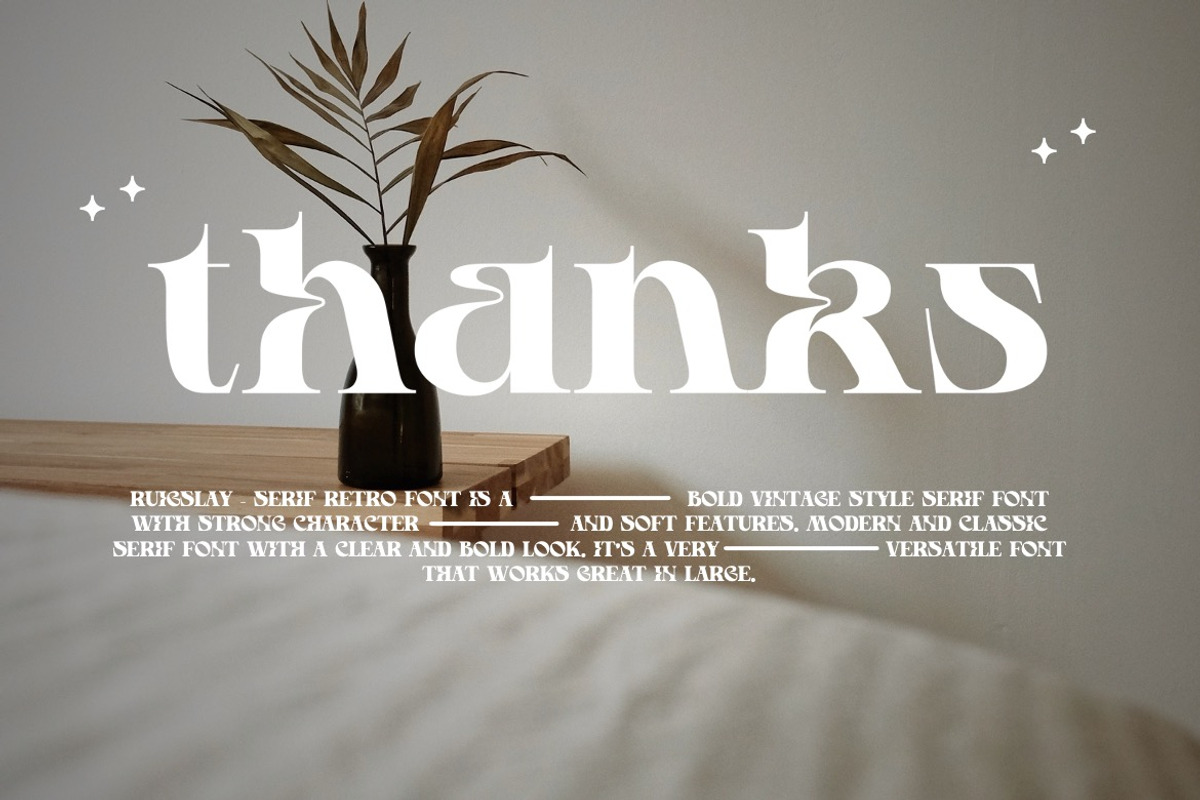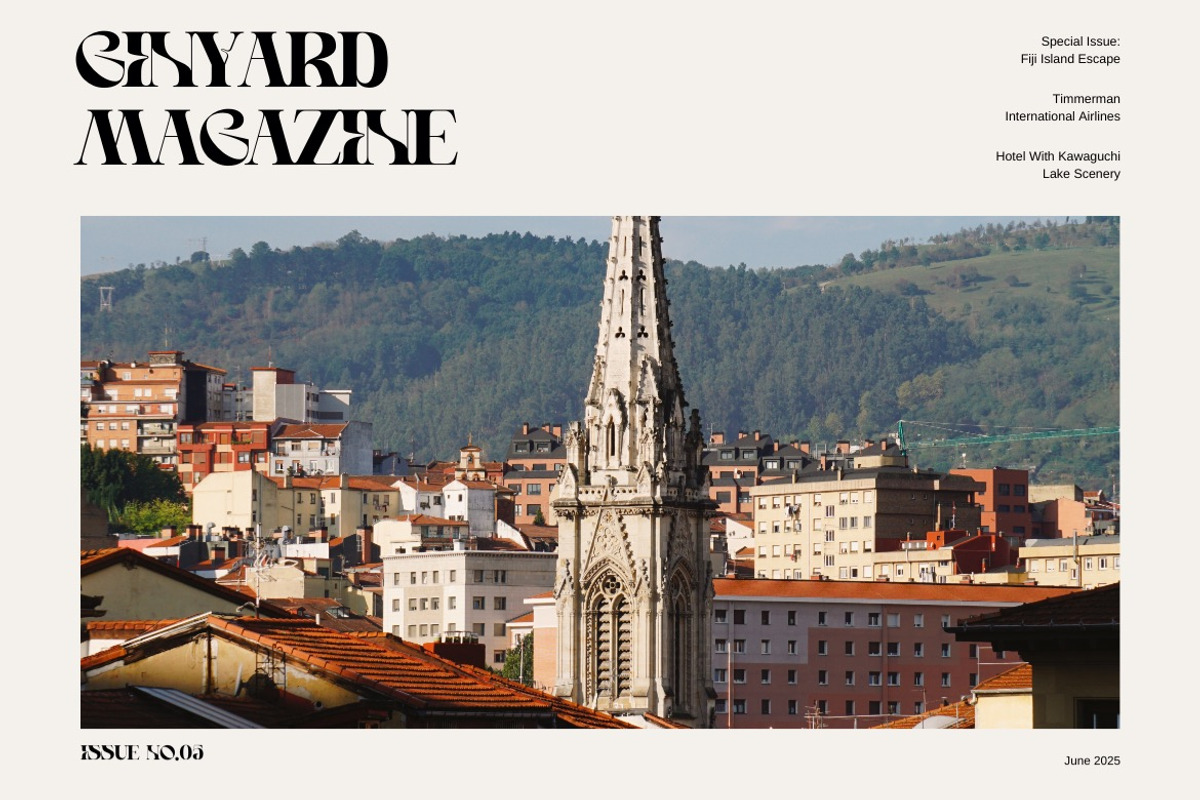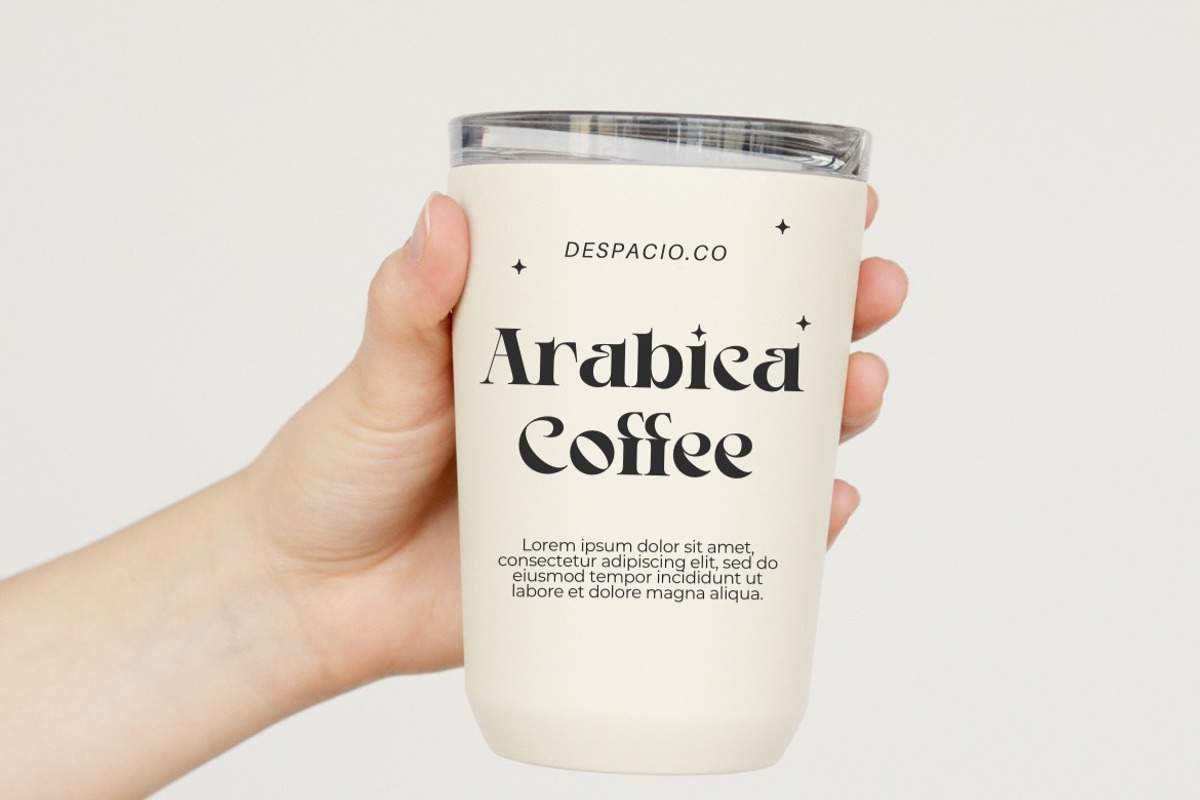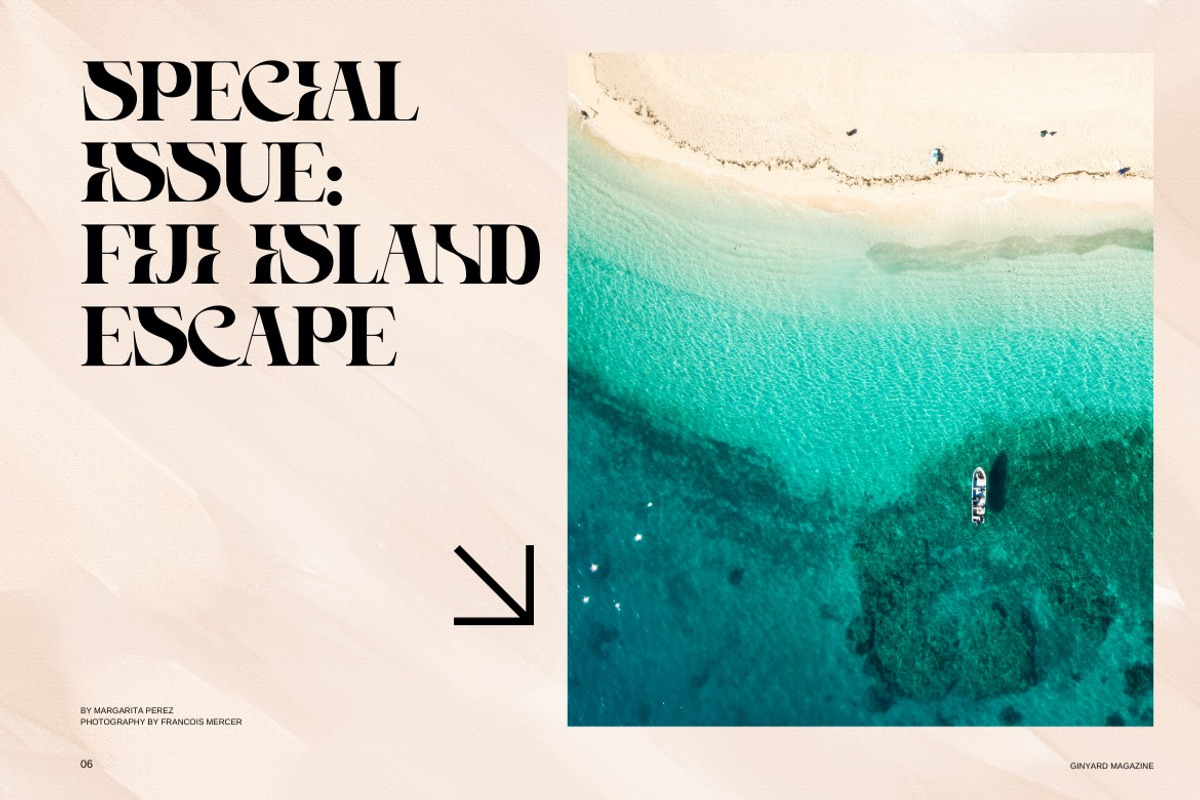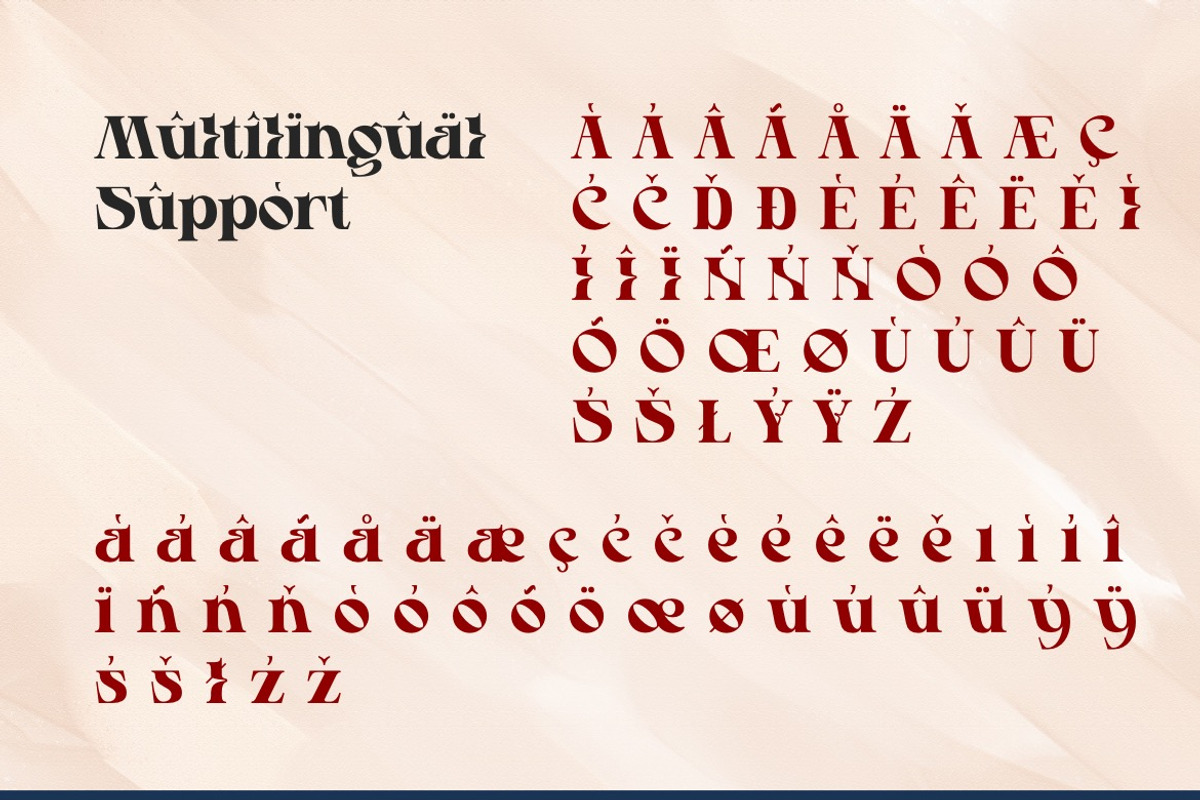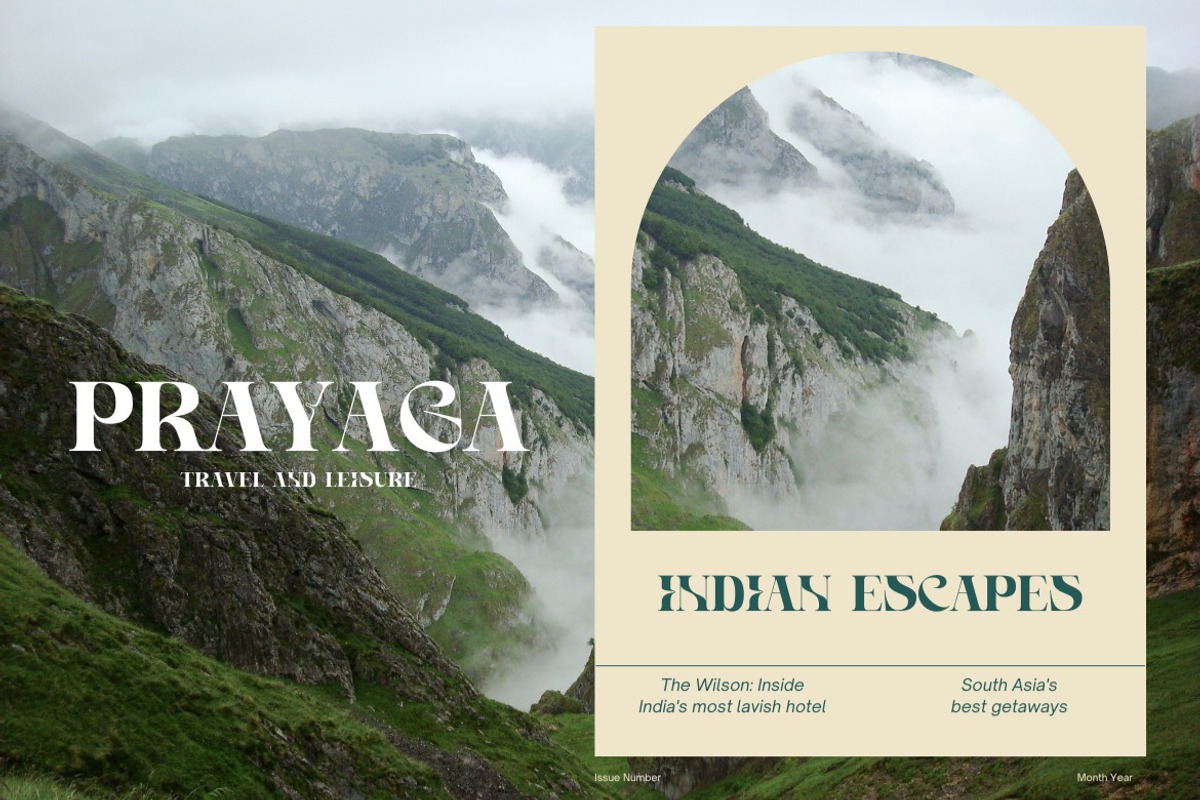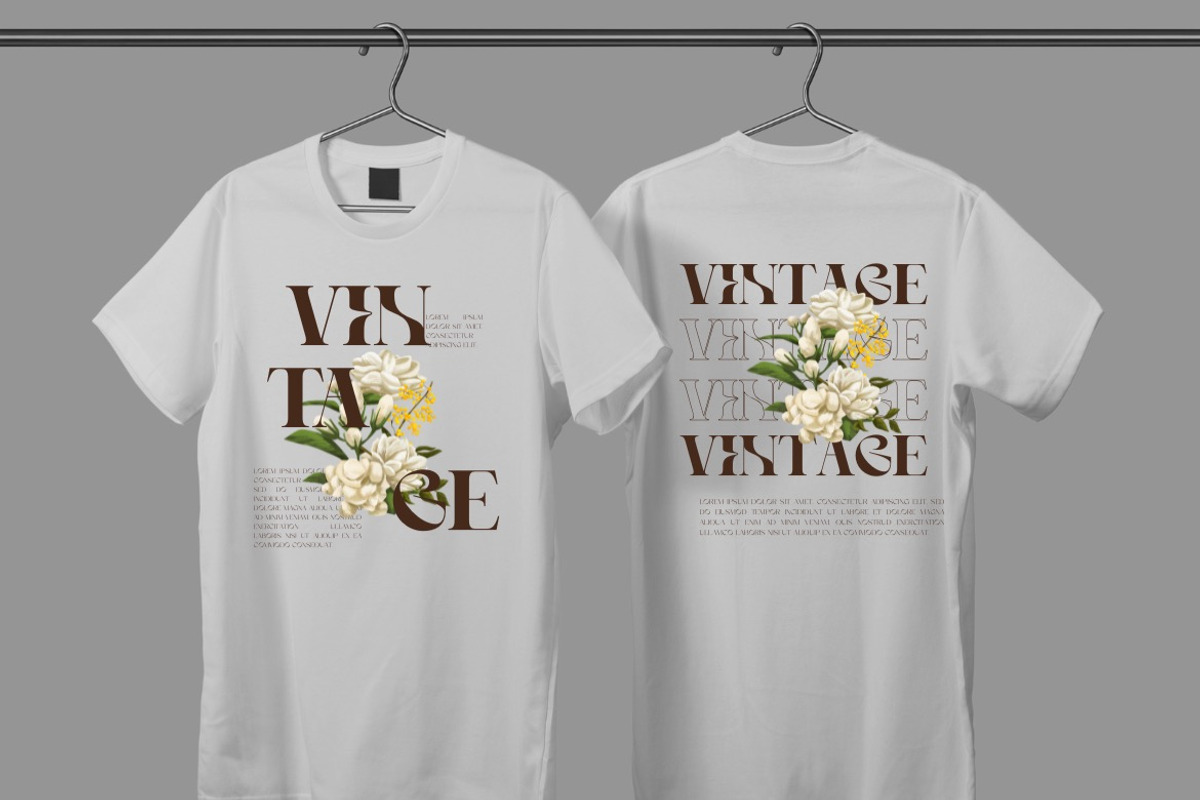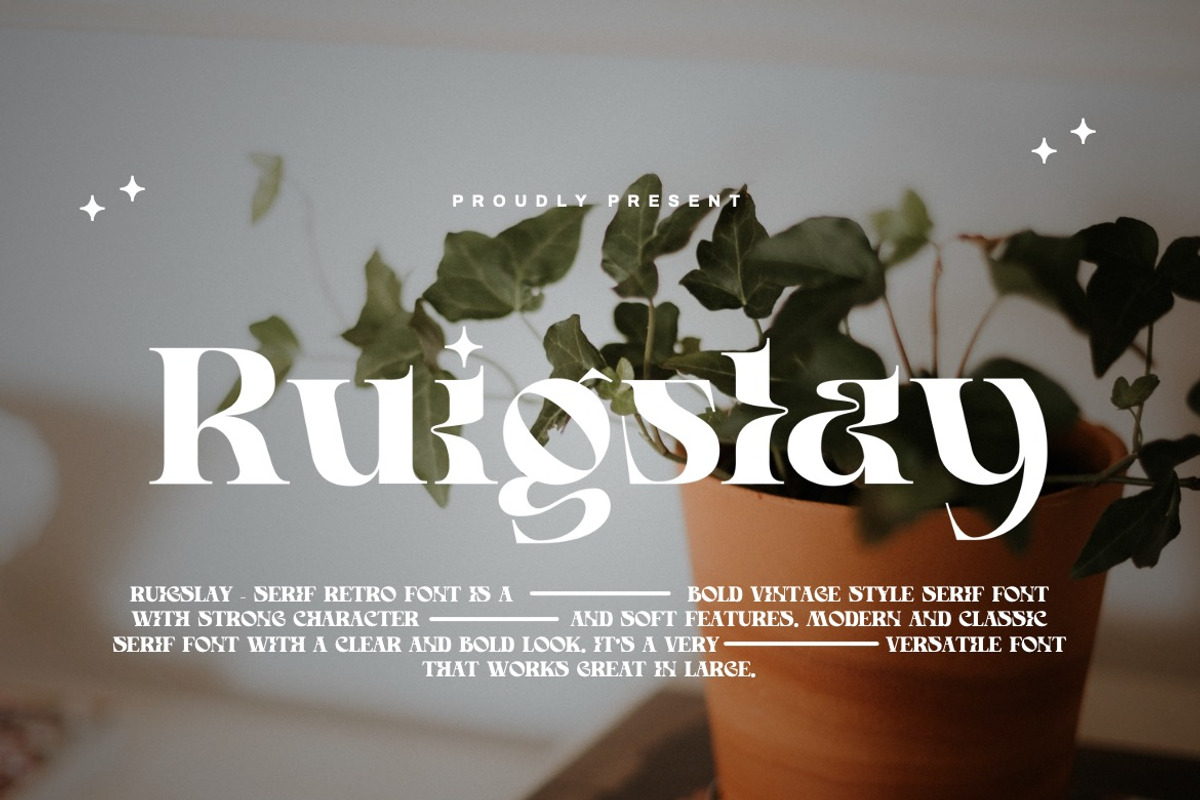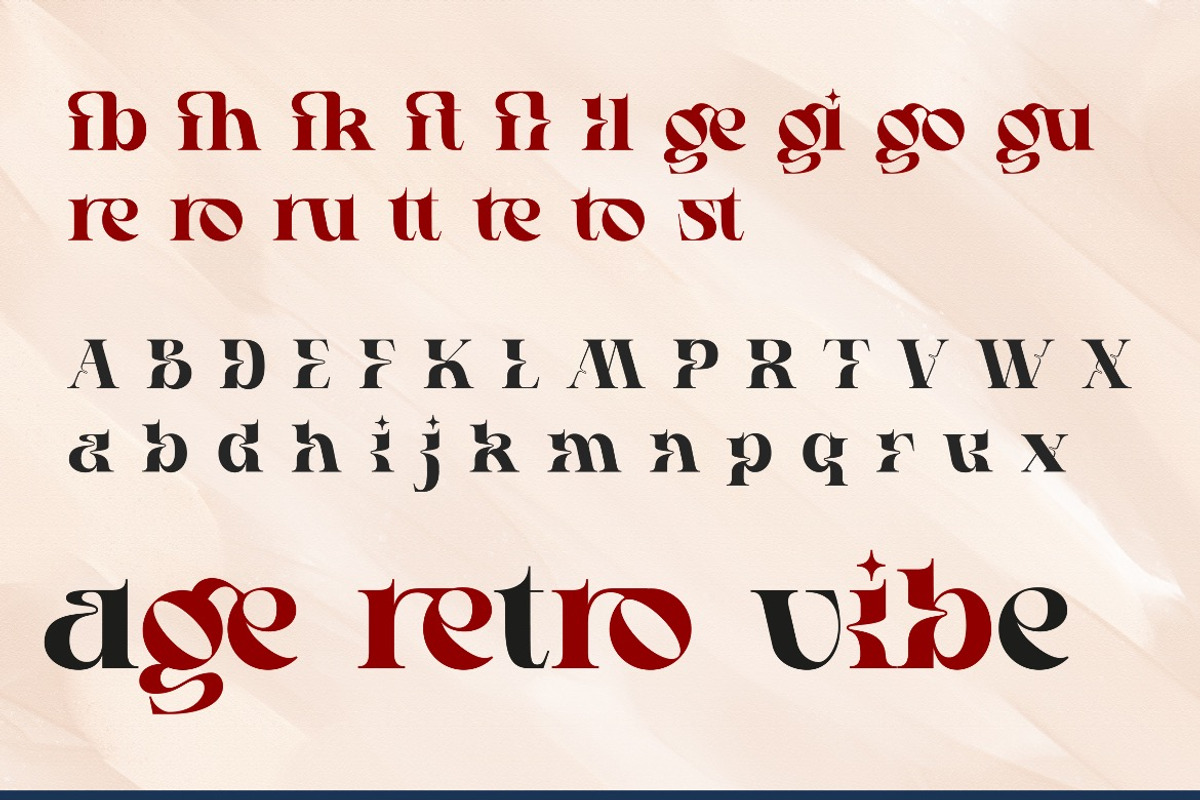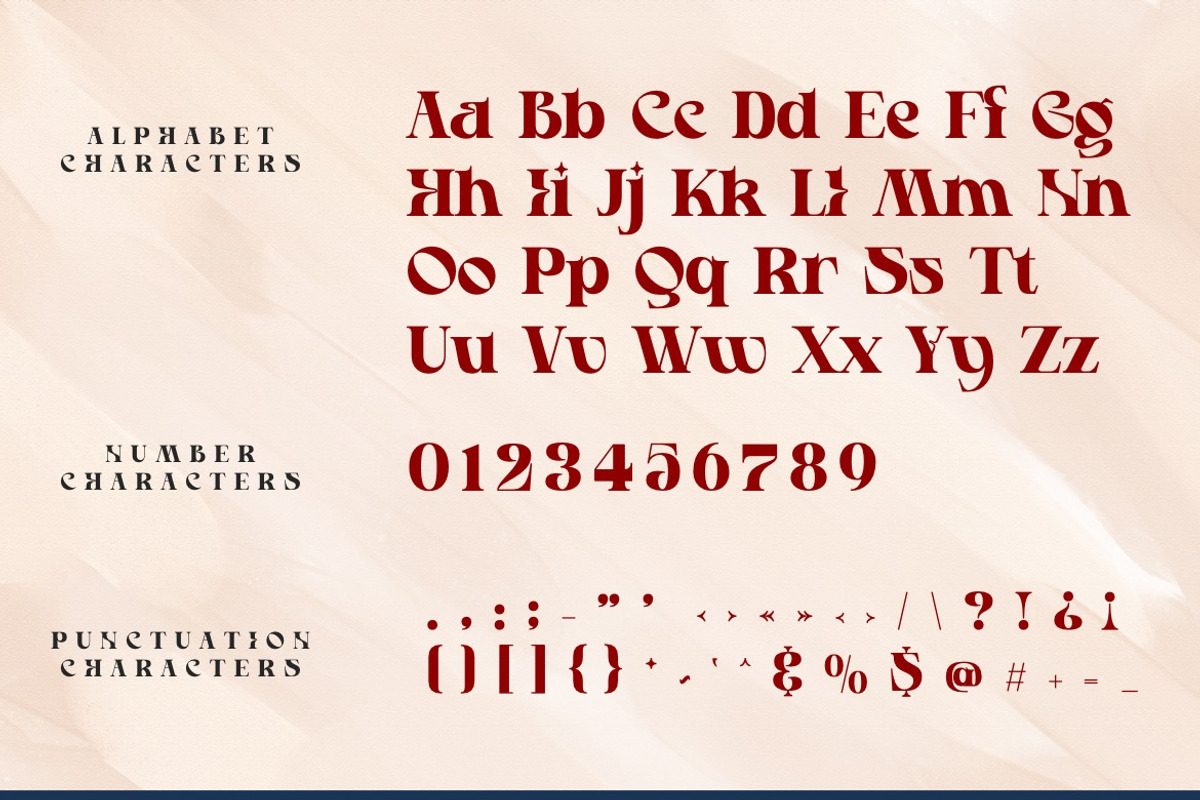
Ruigslay - Serif Retro Font
Introducing Ruigslay - Serif Retro Font
Ruigslay - Serif Retro Font is a Bold vintage style serif font with strong character and soft features. modern and classic serif font with a clear and bold look. It’s a very versatile font that works great in large. Ruigslay was built with stylistic Alternate and Ligature makes your project will be awesome! Perfect for editorial projects, Logo design, web font, clothing branding, product packaging, magazine headers, or simply as a stylish text overlay to any background image.
• Alternate & Ligature